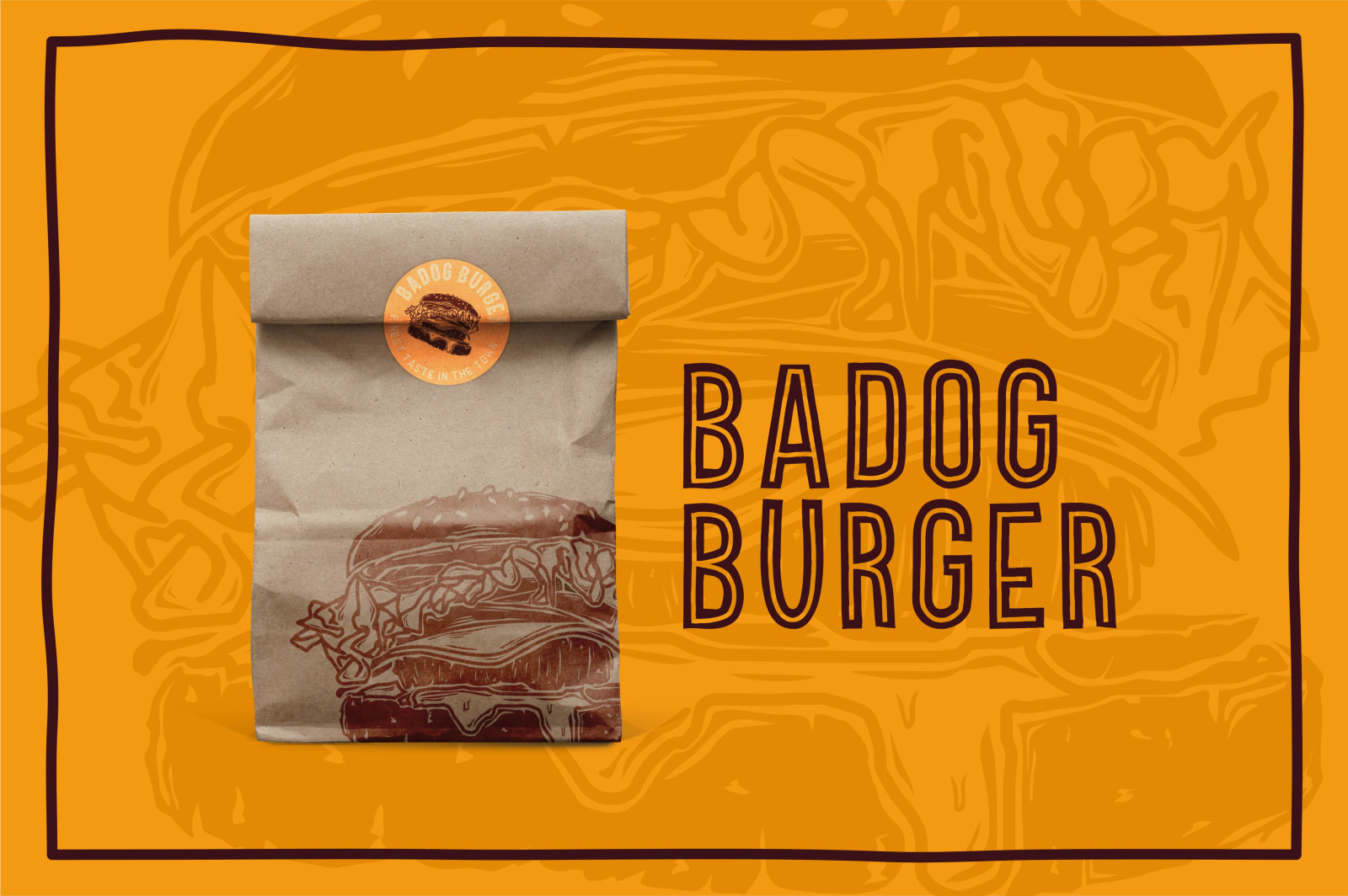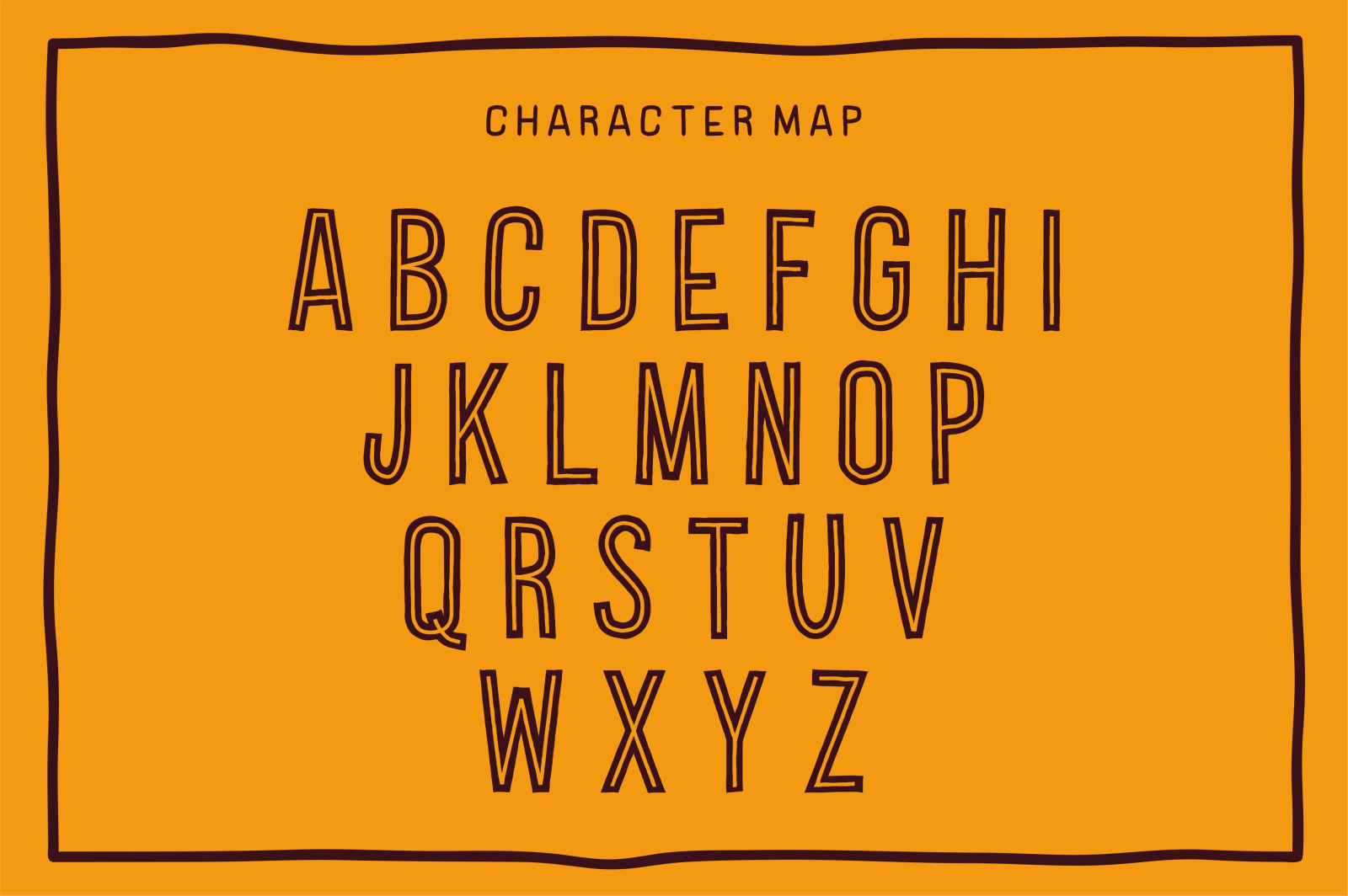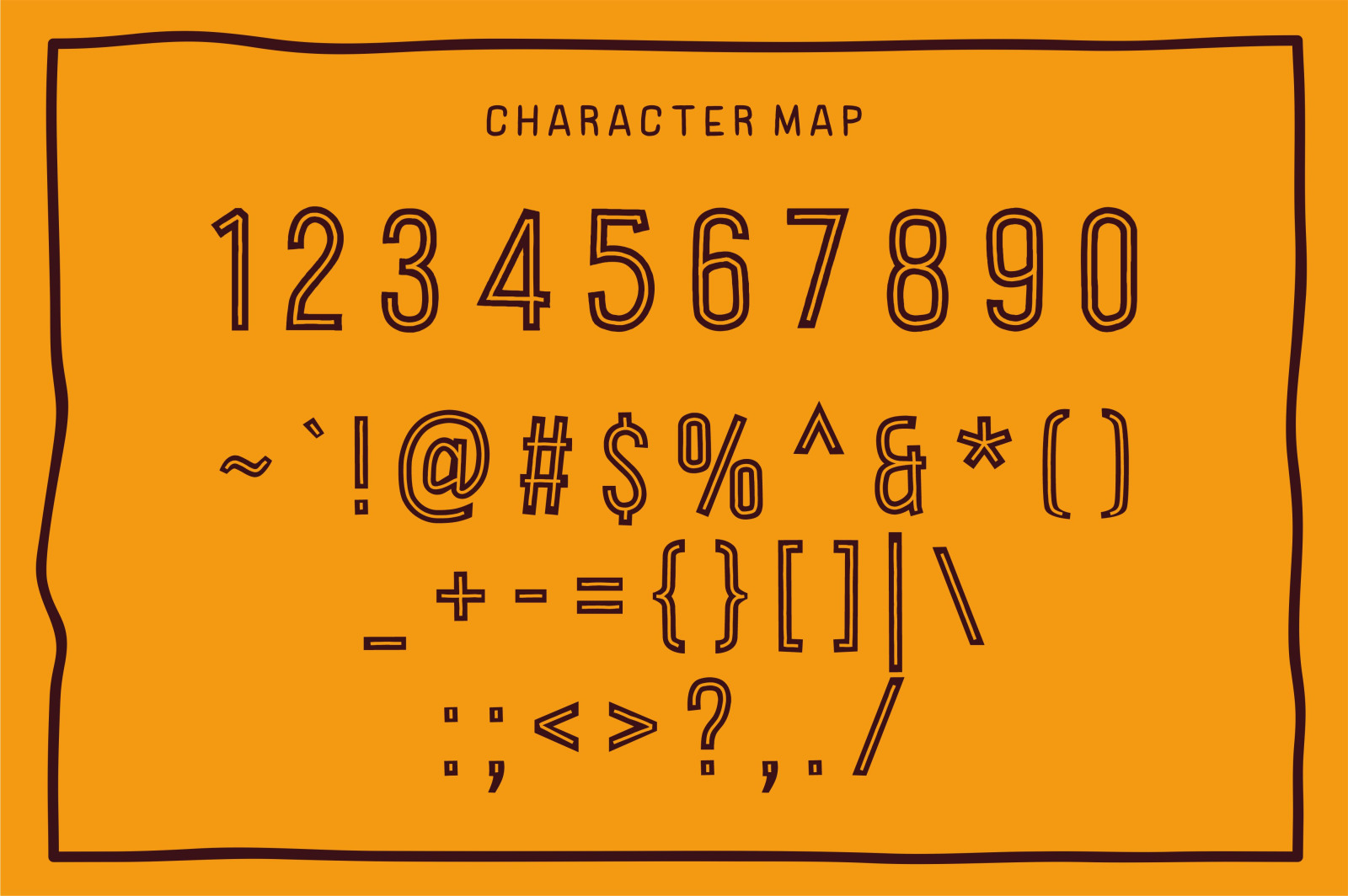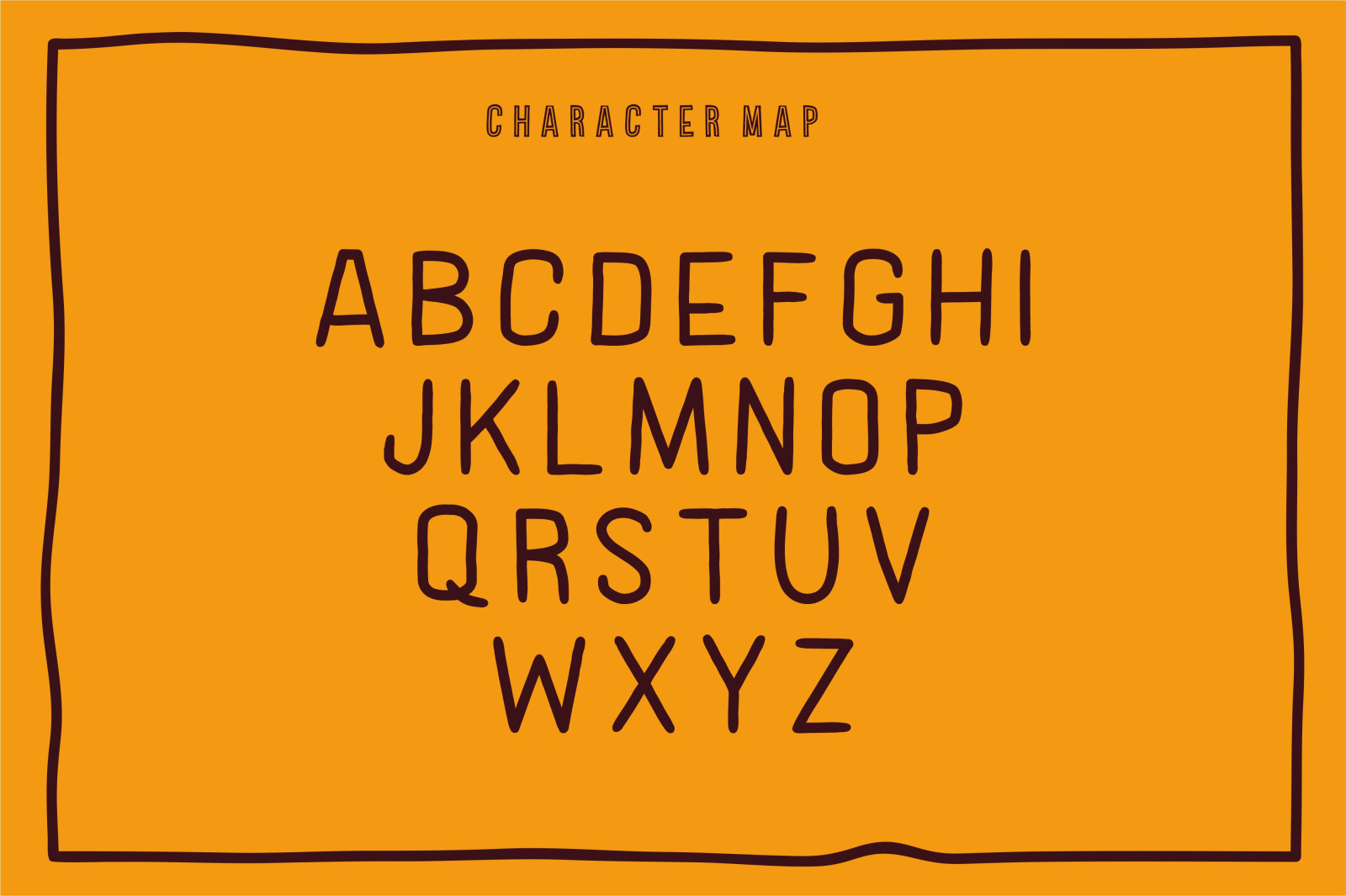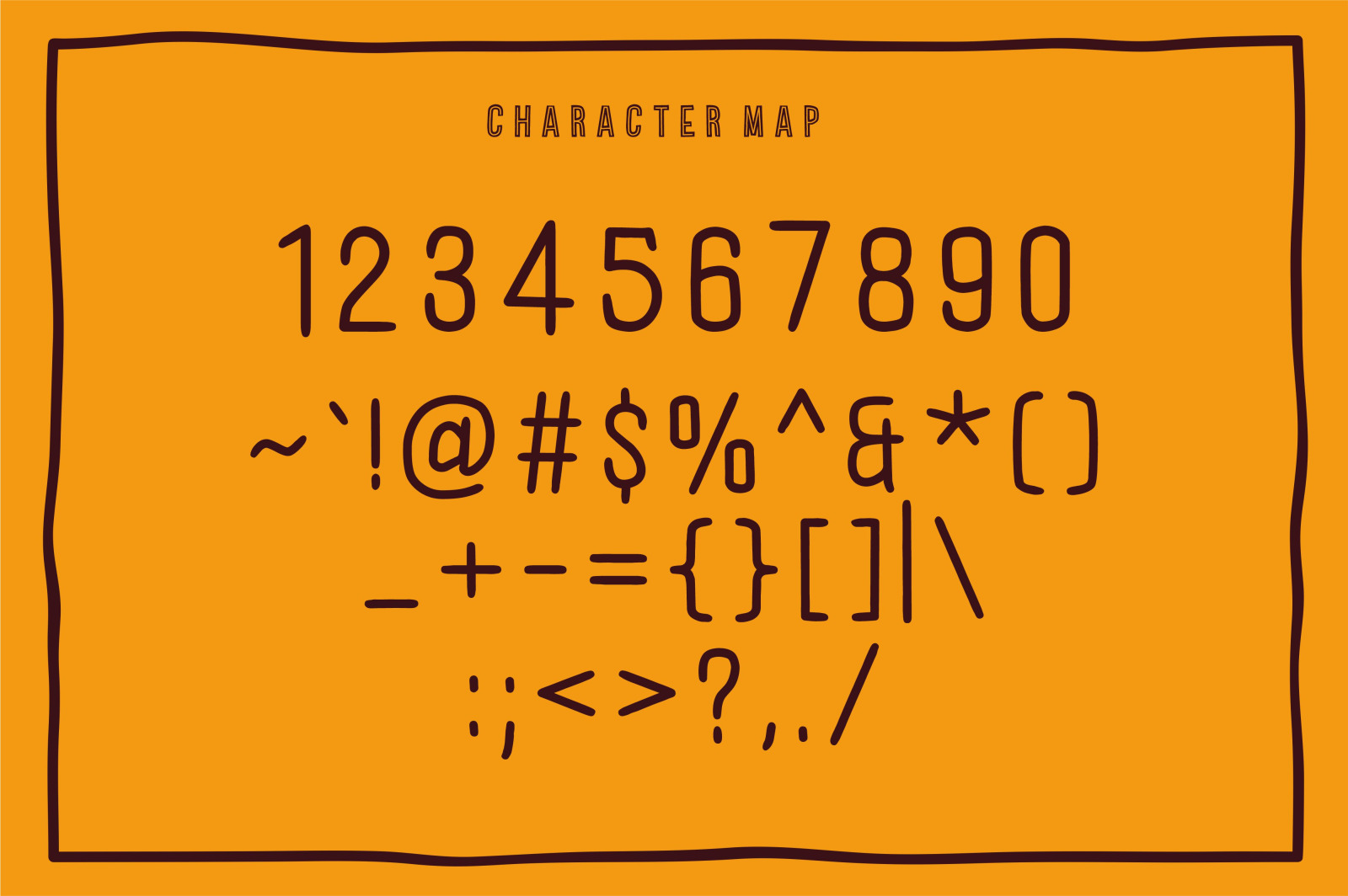
Blackat Font
Blackat is a cool and trendy display font. Suitable to a wide variety of designs due to its neat and simple style, this font has the potential to become your favorite go-to font, no matter the occasion!